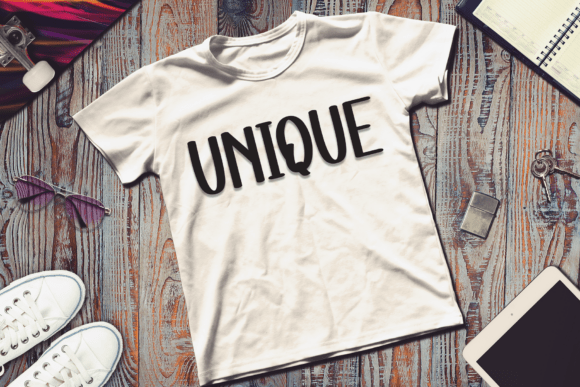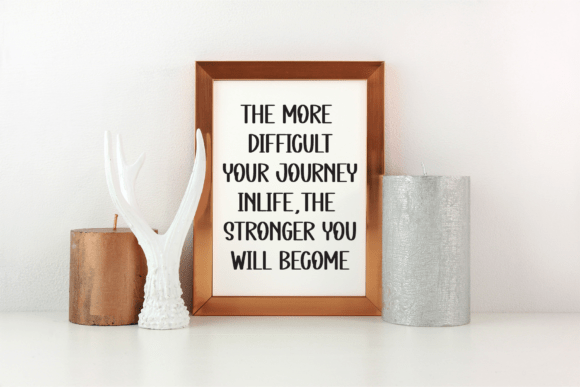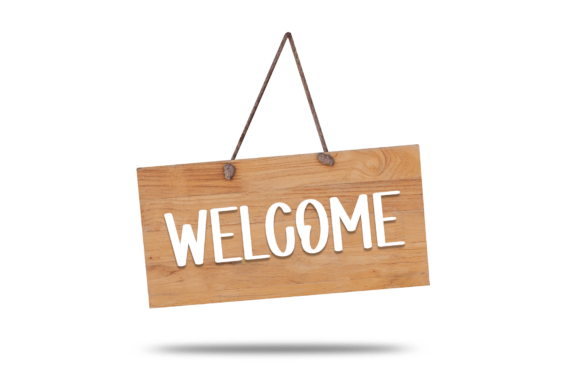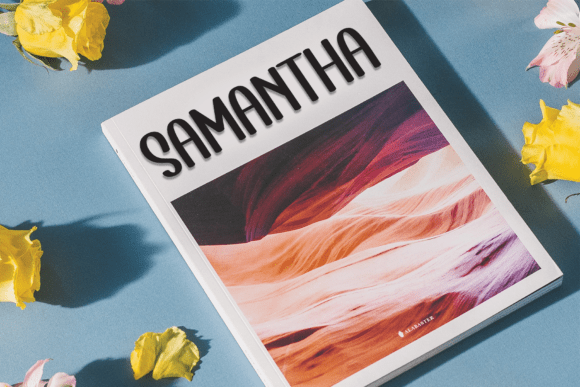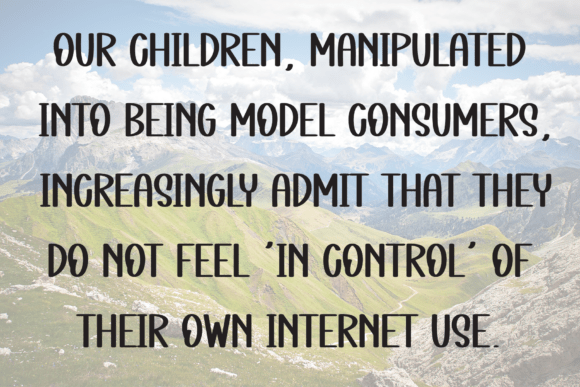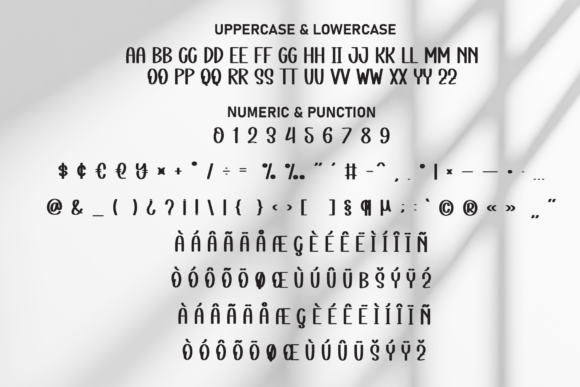
Bolder Shadows Font: Elevate Your Designs with a Fresh and Friendly Vibe
In the world of typography, fonts play a crucial role in conveying the tone and personality of a design. For designers and crafters looking for a font that exudes a fresh, friendly vibe, Bolder Shadows Font is an excellent choice. This casual and neat display font is perfect for a variety of design projects, from packaging and posters to social media graphics.
Clean Lines and Relaxed Structure
One of the standout features of Bolder Shadows Font is its clean lines and relaxed structure. The font’s design is characterized by a sense of simplicity and approachability, making it easy to read and understand. The clean lines also give the font a modern and sleek appearance, perfect for designs that require a bit of sophistication.
The relaxed structure of Bolder Shadows Font adds a touch of informality to the font, making it perfect for designs that require a friendly and approachable tone. Whether you’re designing a poster, a social media graphic, or a packaging label, this font is sure to add a bit of charm and personality to your project.
Bolder Shadows Font is a versatile font that can be used for a wide range of design projects. Here are a few ideas to get you started:
- Packaging Design: Add a touch of personality to your product packaging with Bolder Shadows Font. The font’s clean lines and relaxed structure make it perfect for labels, tags, and other packaging materials.
- Poster Design: Create eye-catching posters with Bolder Shadows Font. The font’s bold and friendly vibe makes it perfect for posters that require a bit of personality.
- Social Media Graphics: Elevate your social media graphics with Bolder Shadows Font. The font’s modern and sleek appearance makes it perfect for graphics that require a bit of sophistication.
Why Choose Bolder Shadows Font?
So, why choose Bolder Shadows Font for your design projects? Here are a few reasons:
- Unique and Eye-Catching: Bolder Shadows Font has a unique and eye-catching design that is sure to grab attention.
- Easy to Read: The font’s clean lines and relaxed structure make it easy to read and understand.
- Versatile: Bolder Shadows Font can be used for a wide range of design projects, from packaging and posters to social media graphics.
- Polished Appearance: The font’s modern and sleek appearance adds a bit of polish to any design project.
Tips for Using Bolder Shadows Font
Here are a few tips for using Bolder Shadows Font in your design projects:
- Pair with Other Fonts: Bolder Shadows Font pairs well with other fonts, so don’t be afraid to experiment with different font combinations.
- Use for Headings: The font’s bold and friendly vibe makes it perfect for headings and titles.
- Experiment with Colors: Bolder Shadows Font looks great in a variety of colors, so don’t be afraid to experiment with different color schemes.
In conclusion, Bolder Shadows Font is a fresh and friendly display font that is perfect for designers and crafters looking for a unique and eye-catching font. With its clean lines, relaxed structure, and polished appearance, this font is sure to add a bit of charm and personality to any design project.